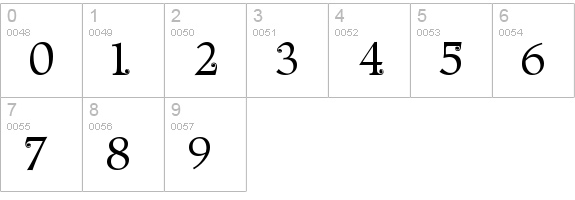
Metshige Normal is the standard, neutral variant in the Metshige typeface family \xE2\x80\x94 well suited to general body text, paragraphs, and standard typographic work.
Metshige Normal font is a versatile and modern typeface that is perfect for a wide range of design projects. Its clean lines and balanced proportions make it easy to read and ideal for both print and digital applications. The font exudes a sense of sophistication and professionalism, making it a great choice for branding, advertising, and editorial design. What sets Metshige Normal font apart is that it is available for free download at FontsMarket.com. This means that you can easily access and use this high-quality font in your projects without any cost or restrictions. Whether you're a designer looking to add a fresh touch to your work or a business owner in need of a polished font for your branding materials, Metshige Normal font is a fantastic choice that won't break the bank. Download it today and elevate your designs with this sleek and modern typeface.